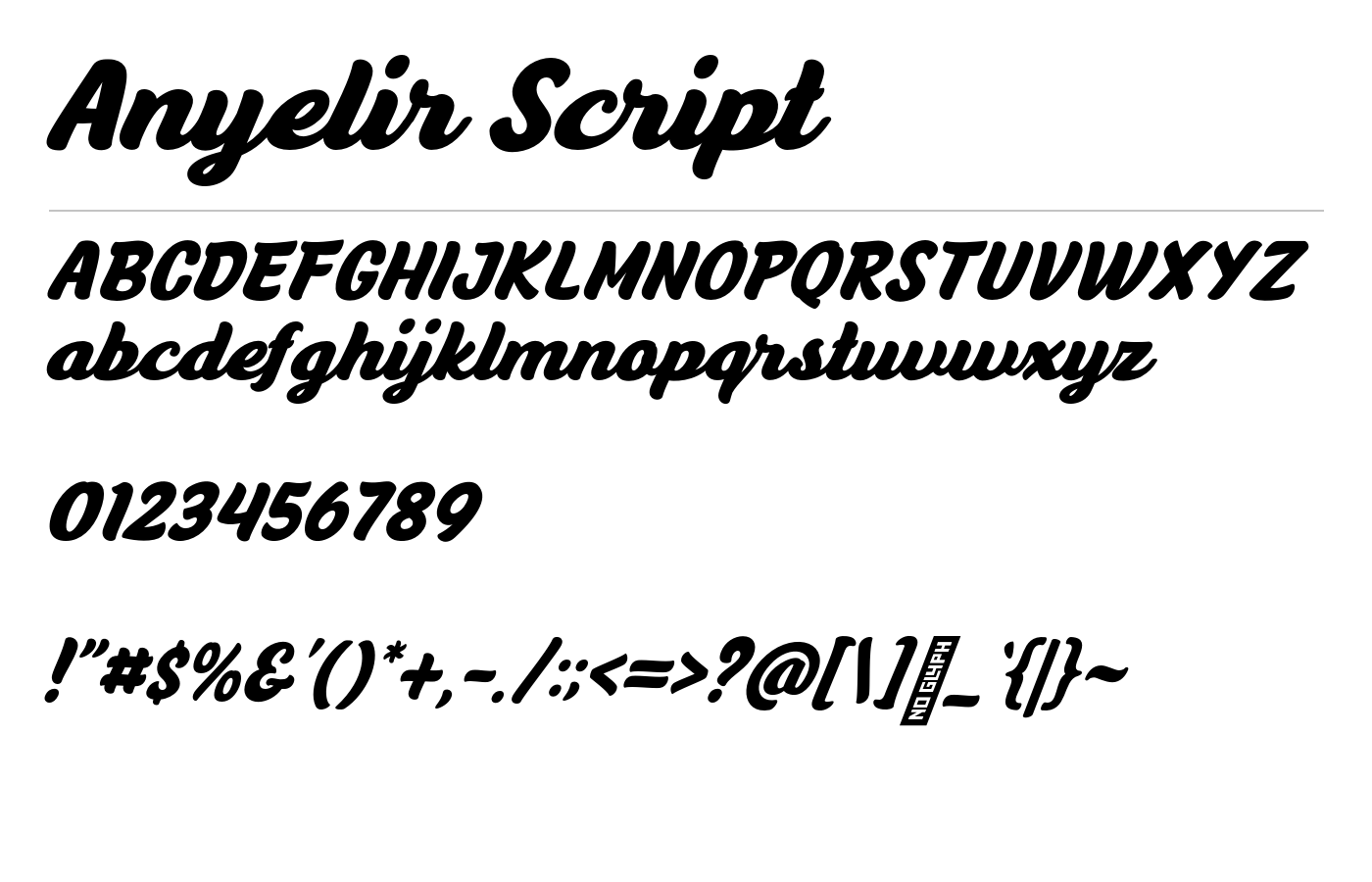
Anyelir Script is a bold and lively script font with smooth, rounded strokes that give it a friendly and energetic feel. Its moderately condensed letterforms and clear, flowing connections make it ideal for eye-catching headlines, branding, and creative projects where a playful yet confident style is desired. Perfect for logos, packaging, or invitations, Anyelir Script brings a charming touch of personality without sacrificing readability.
Anyelir Script Font
About Anyelir Script Font
| Font family | Anyelir Script Font |
| Designer | Fredy Sujono |